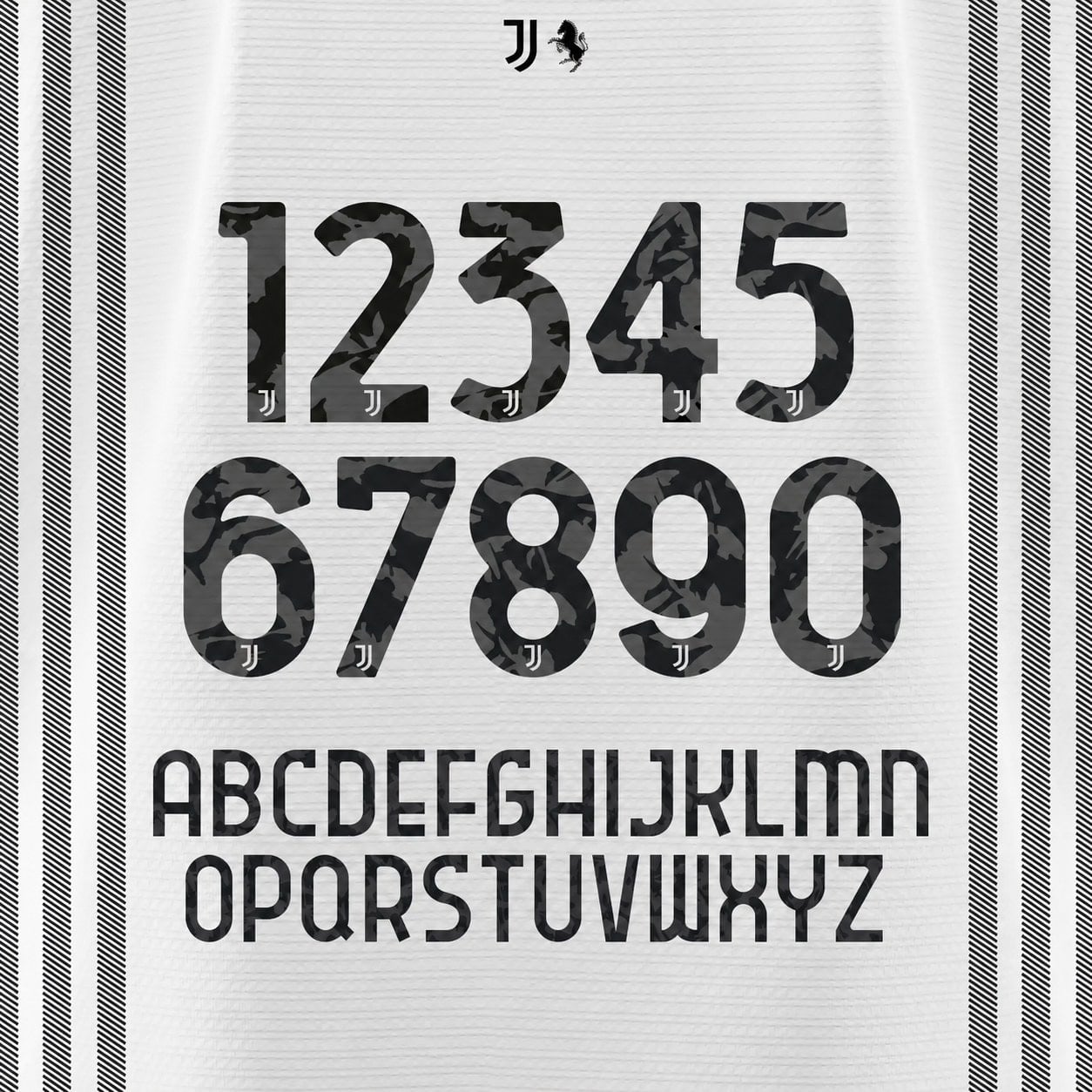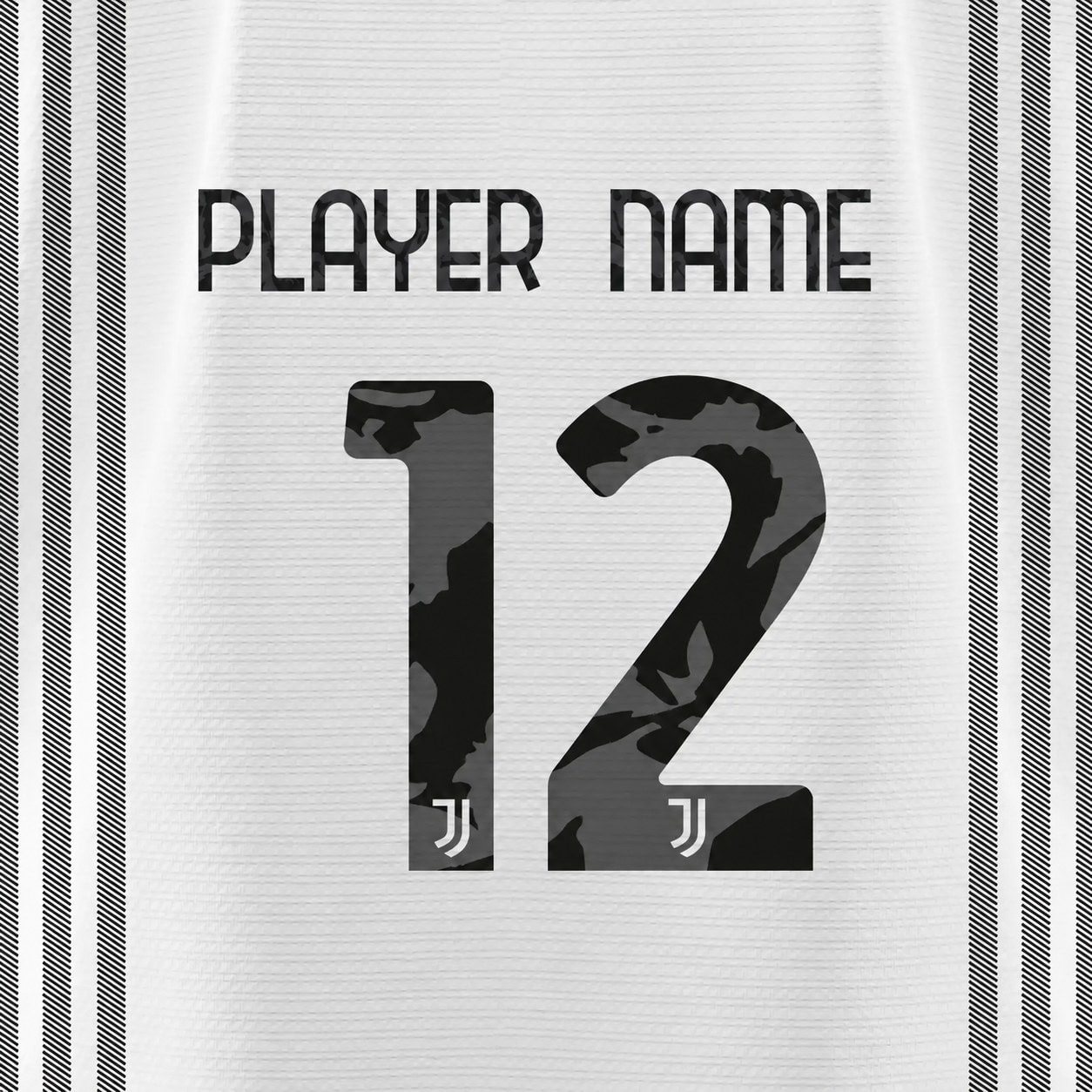
Complete Juventus font set — every letter and every number in one kit, in the iconic camo-pattern lettering style, exactly as shown.
- Full set included: all letters A–Z + all numbers 0–9, exactly as shown
- Fine crest detailing inside the numbers